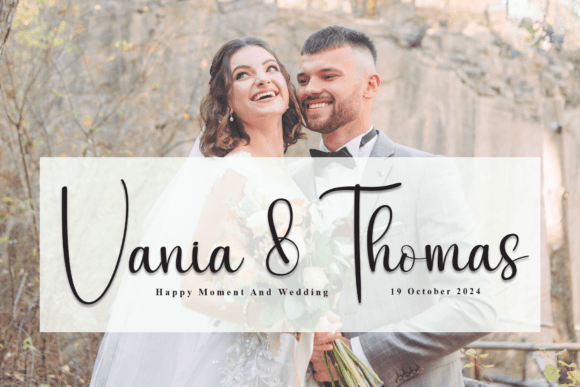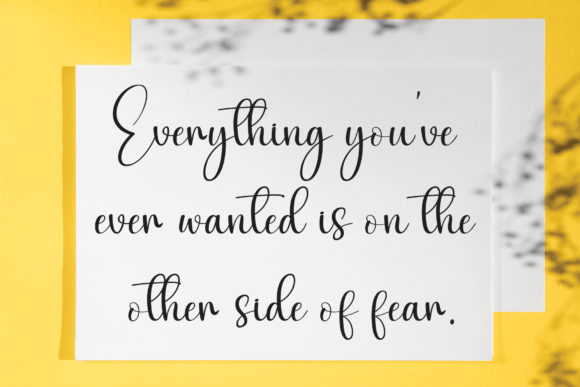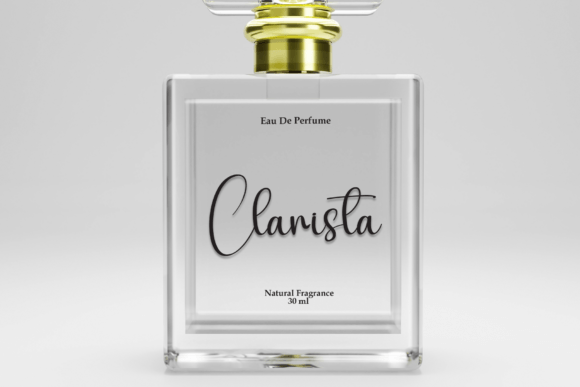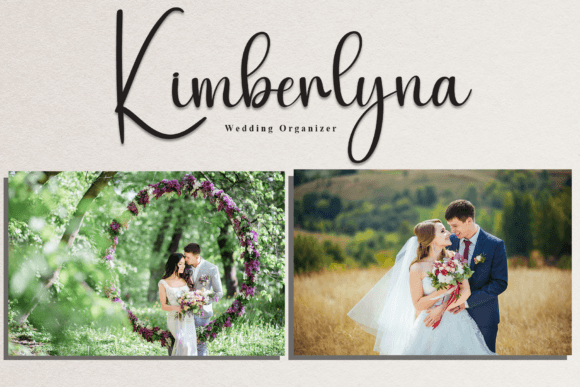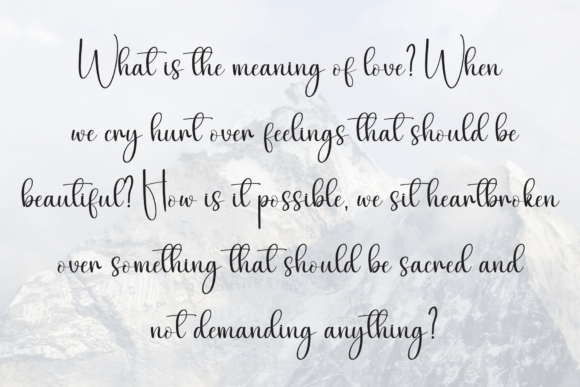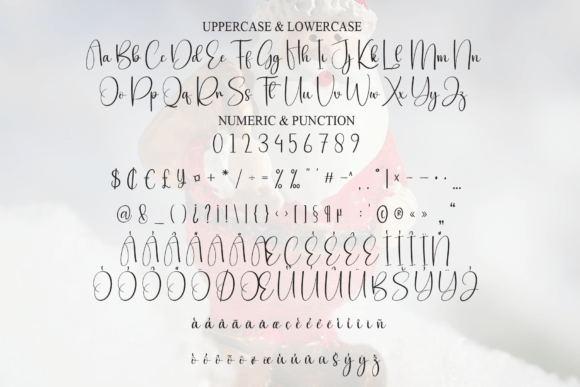
Cutesanta Font: The Ultimate Choice for Festive and Playful Designs
Are you looking for a font that can add a touch of playfulness and charm to your holiday designs, greeting cards, and festive projects? Look no further than Cutesanta, a delightful script font that is sure to bring a smile to anyone’s face. With its smooth, flowing letters and fun, handwritten style, Cutesanta is the perfect choice for designers and crafters who want to create joyful and eye-catching designs.
The Characteristics of Cutesanta Font
Cutesanta is a unique and captivating font that boasts a range of characteristics that make it perfect for festive and playful designs. Some of its key features include:
- Playful and charming script font: Cutesanta has a fun and lively feel that is sure to add a touch of whimsy to any design.
- Smooth, flowing letters: The font features smooth, connected letters that give it a fluid and natural look.
- Handwritten style: Cutesanta has a friendly, handwritten feel that makes it perfect for creating personal and engaging designs.
- Cute and friendly look: The font’s adorable and approachable style makes it ideal for designs that need to convey a sense of warmth and friendliness.
Uses for Cutesanta Font
Cutesanta is a versatile font that can be used in a wide range of design projects, including:
- Holiday designs: Cutesanta is perfect for creating festive holiday designs, such as Christmas cards, decorations, and social media graphics.
- Greeting cards: The font’s playful and charming style makes it ideal for creating greeting cards for special occasions, such as birthdays, weddings, and anniversaries.
- Festive projects: Cutesanta can be used to create a range of festive projects, such as party invitations, flyers, and brochures.
- Branding and packaging: The font’s unique and eye-catching style makes it perfect for use in branding and packaging designs, particularly for businesses that want to convey a sense of fun and playfulness.
Why Choose Cutesanta Font?
There are many fonts available that claim to be perfect for festive and playful designs, but Cutesanta stands out from the crowd. Here are just a few reasons why:
- Unique and eye-catching style: Cutesanta has a distinctive and captivating style that is sure to grab attention and leave a lasting impression.
- Easy to read: Despite its playful and whimsical feel, Cutesanta is surprisingly easy to read, making it perfect for use in designs that need to convey a message or tell a story.
- Versatile: Cutesanta can be used in a wide range of design projects, from holiday designs and greeting cards to branding and packaging.
- Fun and engaging: The font’s playful and charming style makes it perfect for designs that need to convey a sense of fun and engagement.
Tips for Using Cutesanta Font
To get the most out of Cutesanta, here are a few tips to keep in mind:
- Use it sparingly: While Cutesanta is a beautiful font, it can be overwhelming if used too much. Use it sparingly to add a touch of playfulness and whimsy to your designs.
- Experiment with colors: Cutesanta looks great in a range of colors, from bright and bold to soft and pastel. Experiment with different colors to find the perfect look for your design.
- Pair it with other fonts: Cutesanta can be paired with other fonts to create a unique and eye-catching look. Try pairing it with a bold, sans-serif font for a fun and modern look.
Cutesanta is a delightful script font that is perfect for designers and crafters who want to create festive and playful designs. With its smooth, flowing letters and fun, handwritten style, Cutesanta is sure to add a touch of joy and whimsy to any design. Whether you’re creating holiday designs, greeting cards, or festive projects, Cutesanta is the perfect choice. So why not give it a try and see the magic for yourself?